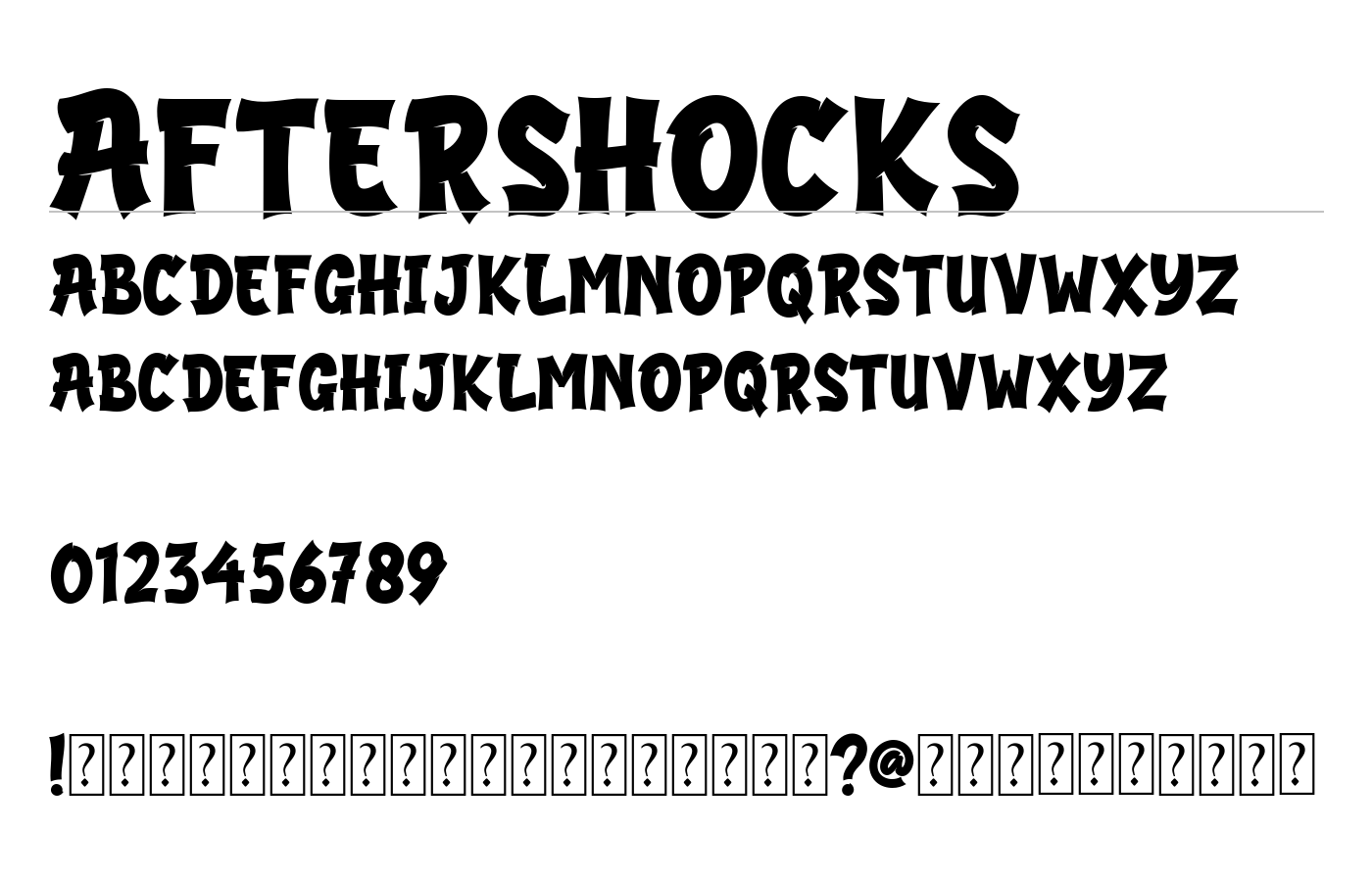
Aftershocks is a bold, decorative display font with strong, jagged edges and a dynamic, hand-drawn feel. Its thick, irregular strokes and sharp angles give it an energetic, dramatic personality ideal for attention-grabbing headlines, posters, and branding in entertainment or edgy designs. This font works best where a striking, informal impact is desired, making it perfect for logos and creative projects aiming to convey excitement and intensity.
Aftershocks Font
About Aftershocks Font
| Font family | Aftershocks Font |
| Designer | Taufik Tri Ariyanto from OPXWORK Std. |